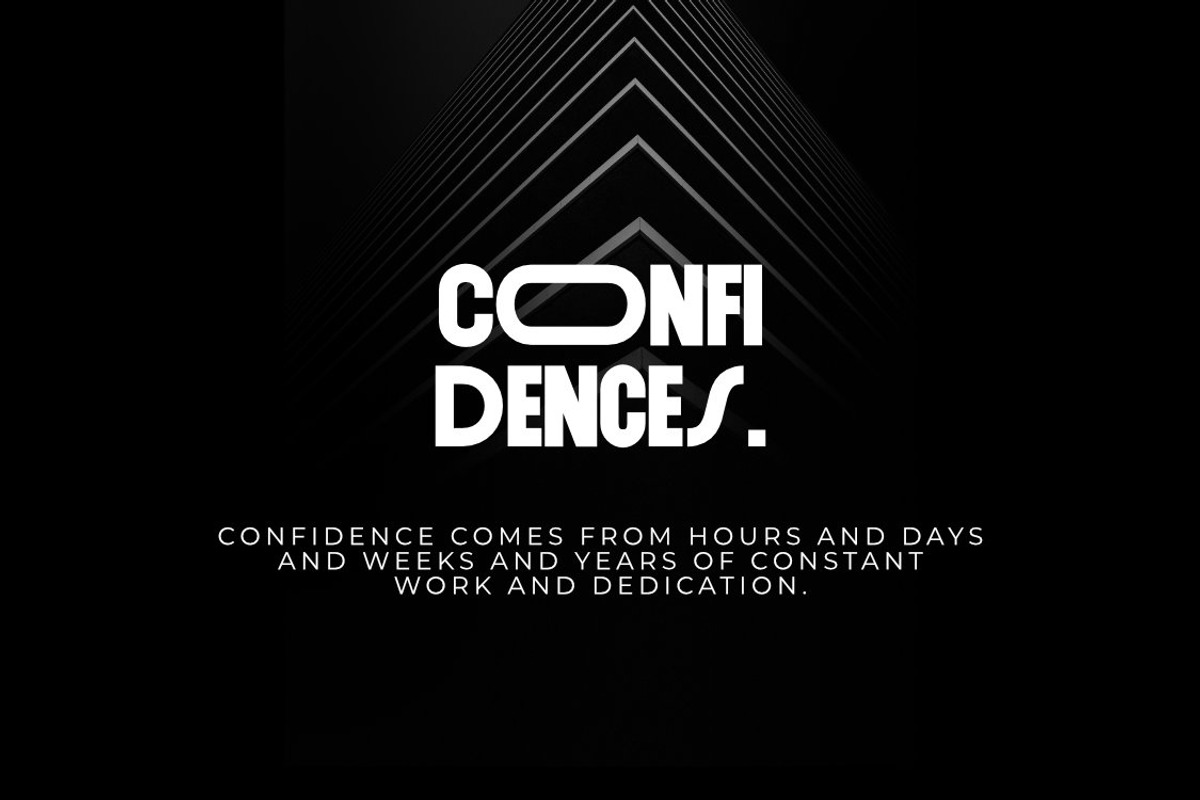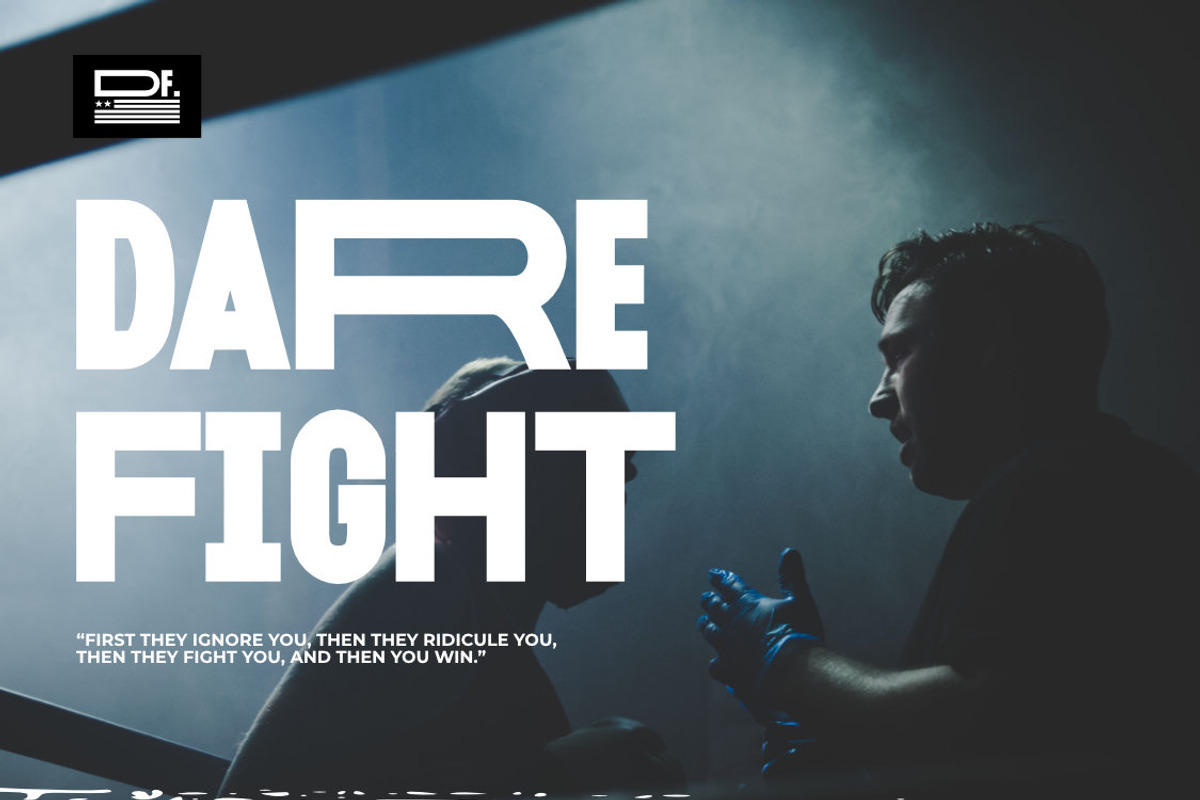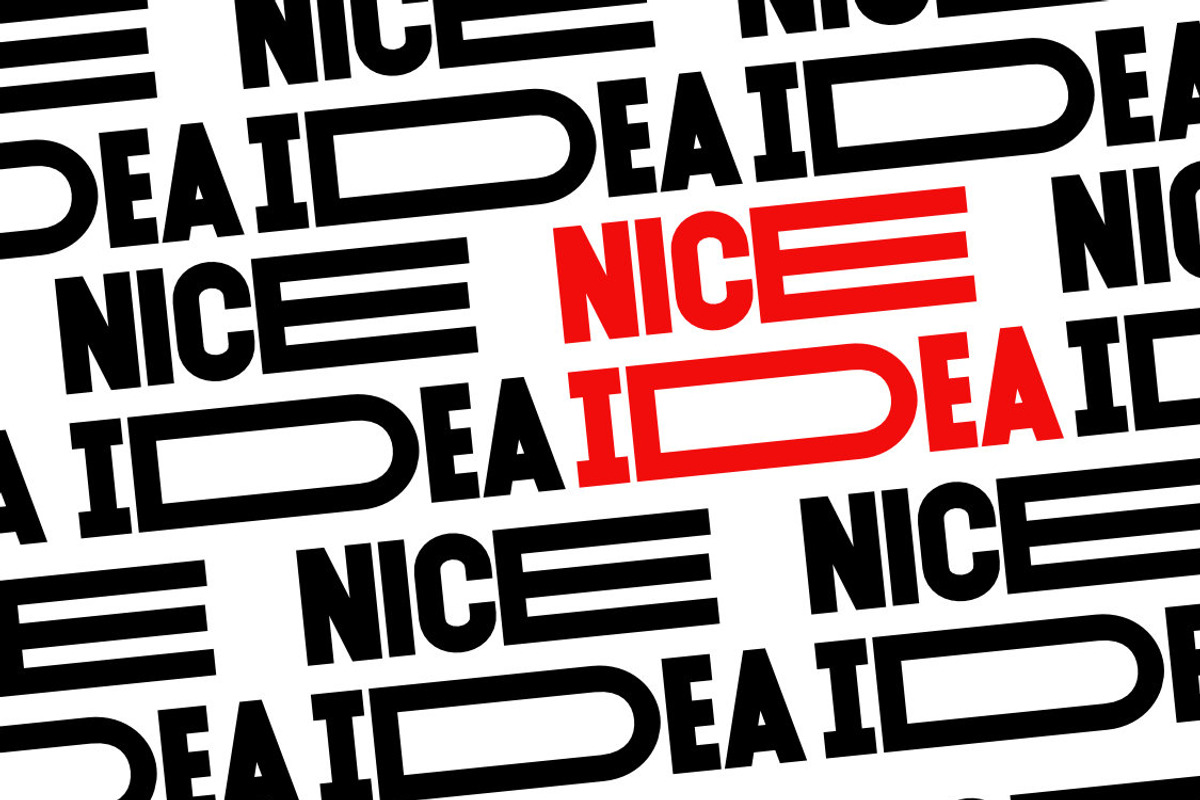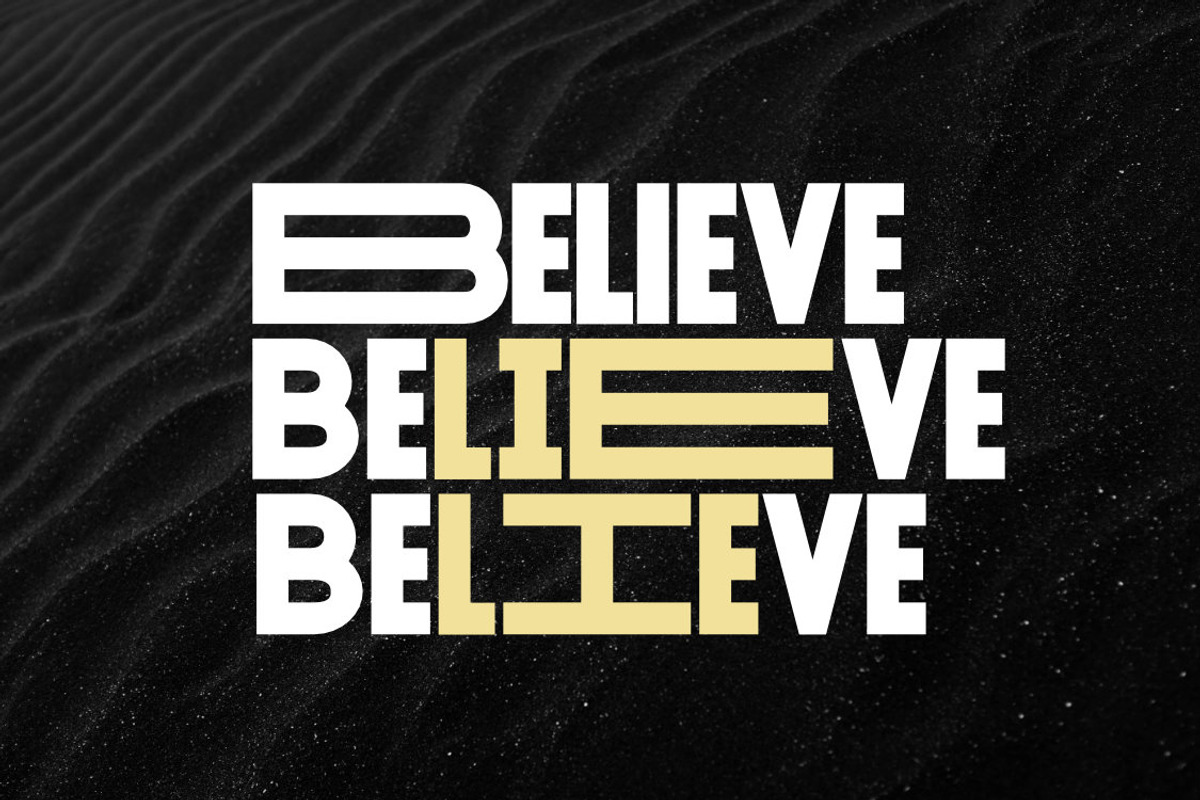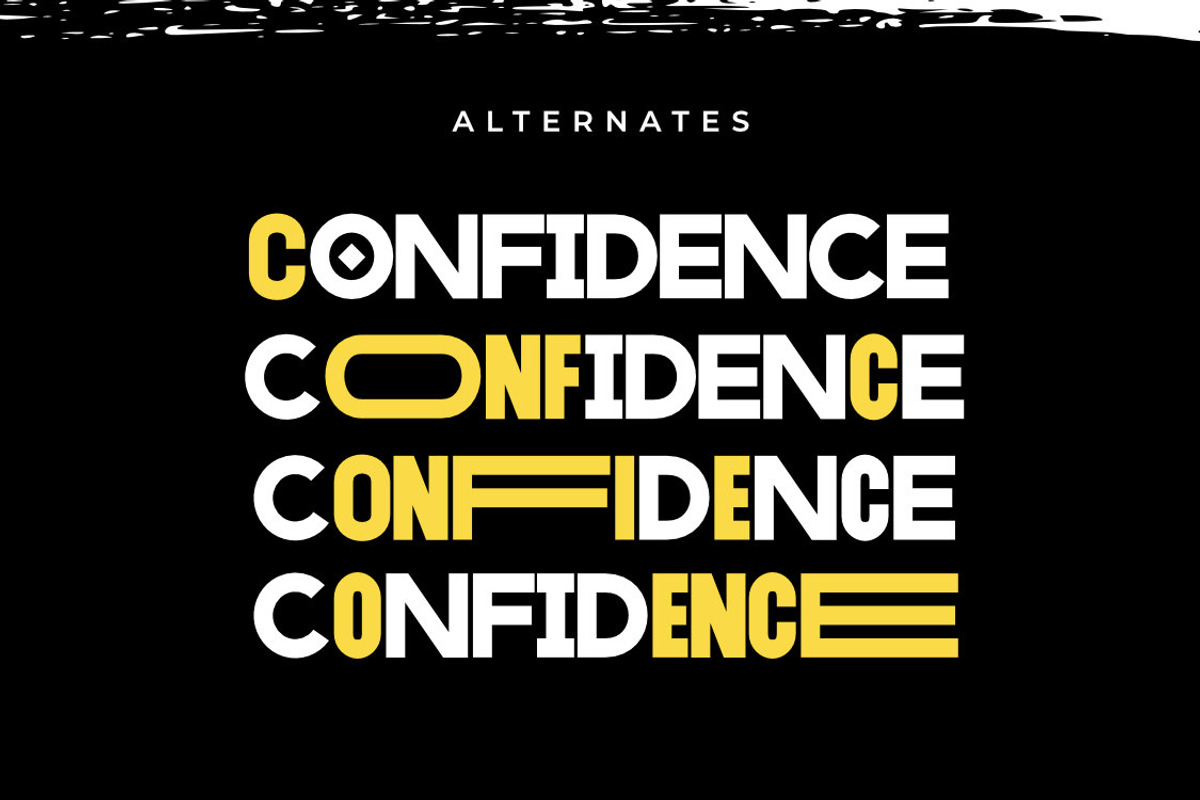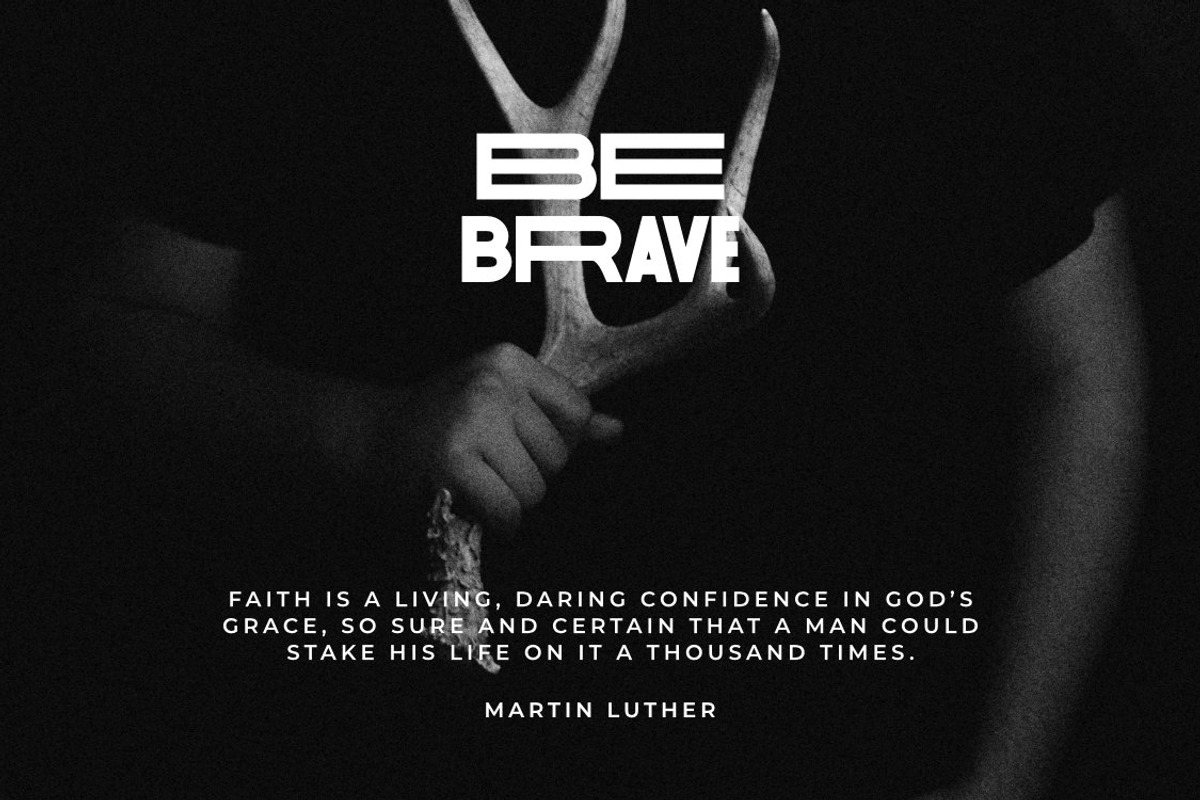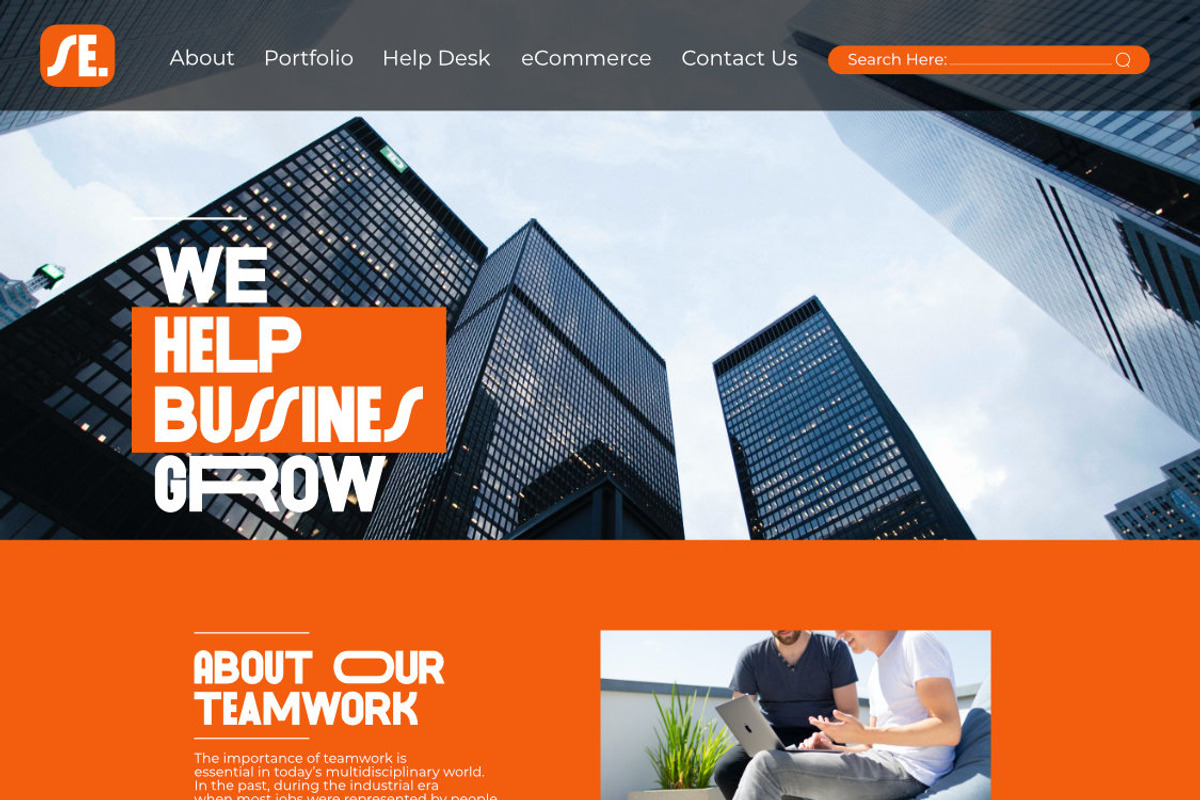
Marinford Modern Bold Logo Font
Introducing Marinford – a bold and modern logo font built for standout branding and sleek design. With clean lines and geometric structure, Marinford brings a sharp, futuristic edge to your brand, perfect for everything from fashion to technology.
Whether you're designing for tech innovation, engineering, or a cutting-edge startup, this sans serif typeface delivers that strong, confident vibe. It's minimalist yet powerful — ideal for bold logos, high-impact branding, and forward-thinking creative projects.
Rooted in both vintage structure and modern aesthetics, Marinford is where clean design meets futuristic ambition. A versatile choice for any designer aiming to make a statement in the world of luxury, tech, and innovation.